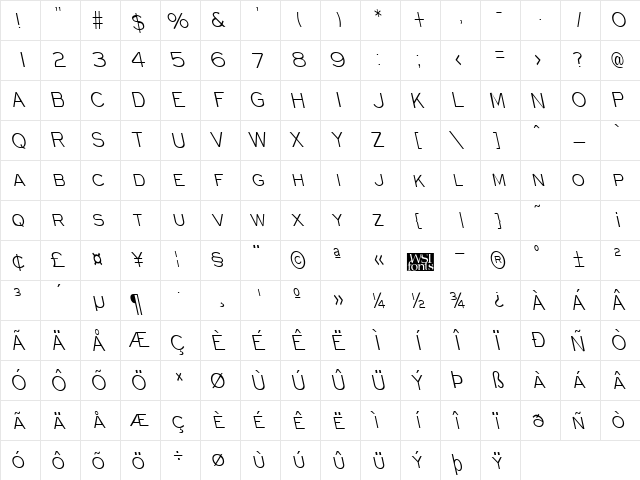
EyechartCondBS Regular Font Preview
EyechartCondBS Regular
Design Context for EyechartCondBS Typeface
EyechartCondBS offers clean, dependable letterforms without strong stylistic allegiance, making it a practical choice for designers who need flexibility. Its narrow stance lets it pack a punch even in space-constrained designs.
Pro Tip: Pair EyechartCondBS with a font of contrasting weight or personality to build a more expressive typographic hierarchy.